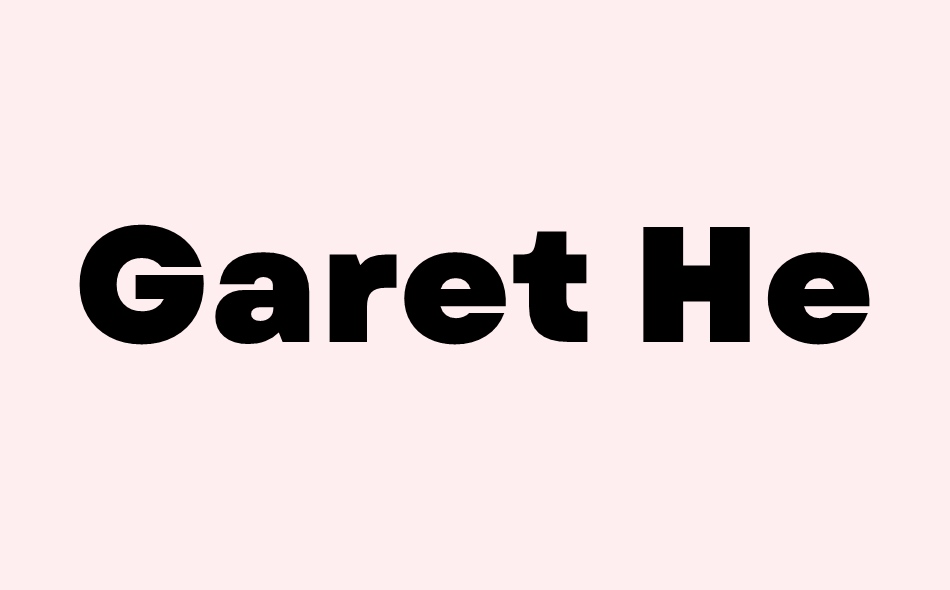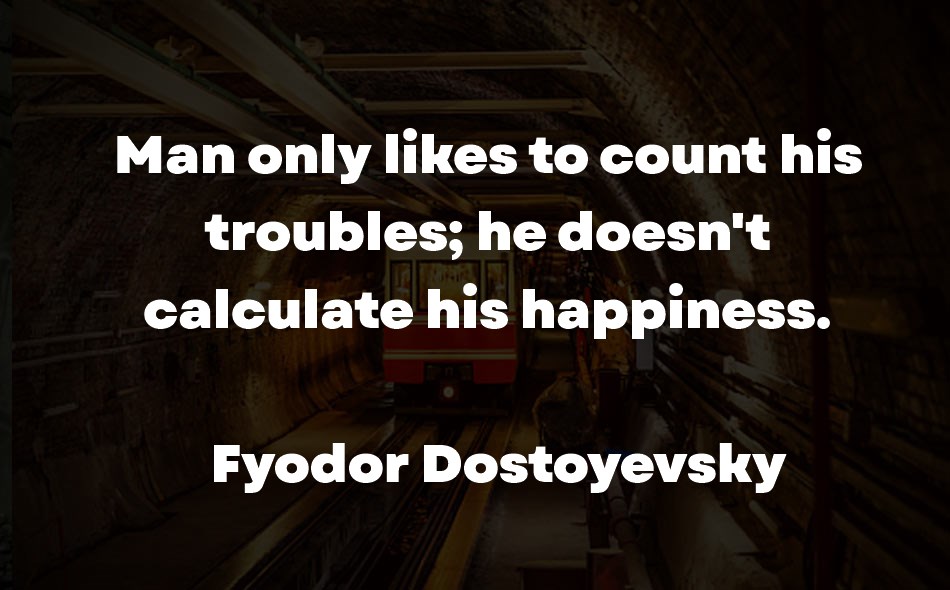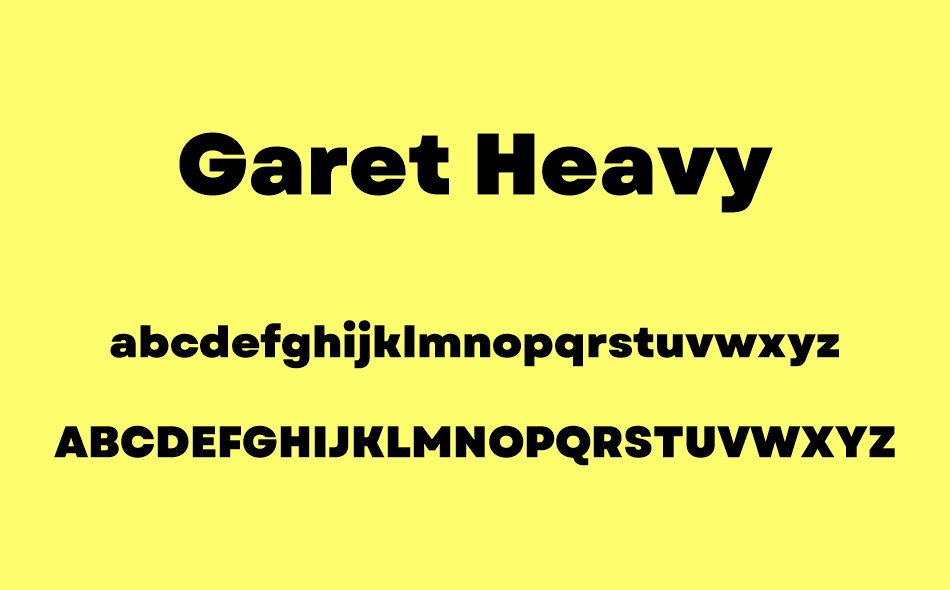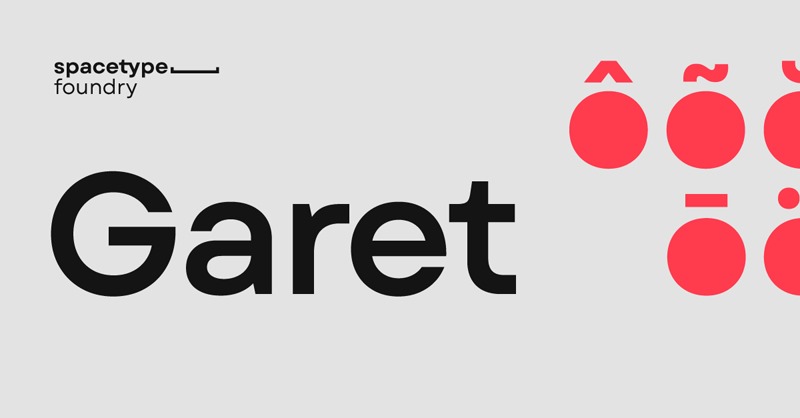
Garet font
Garet is a modern geometric sans serif.
It is characterised by high x-height, clean and soft letterforms with a smooth masculine tone.
Garet derives its distinctive oval shapes from the optically perfect circle and has closed counters to further emphasise that form.